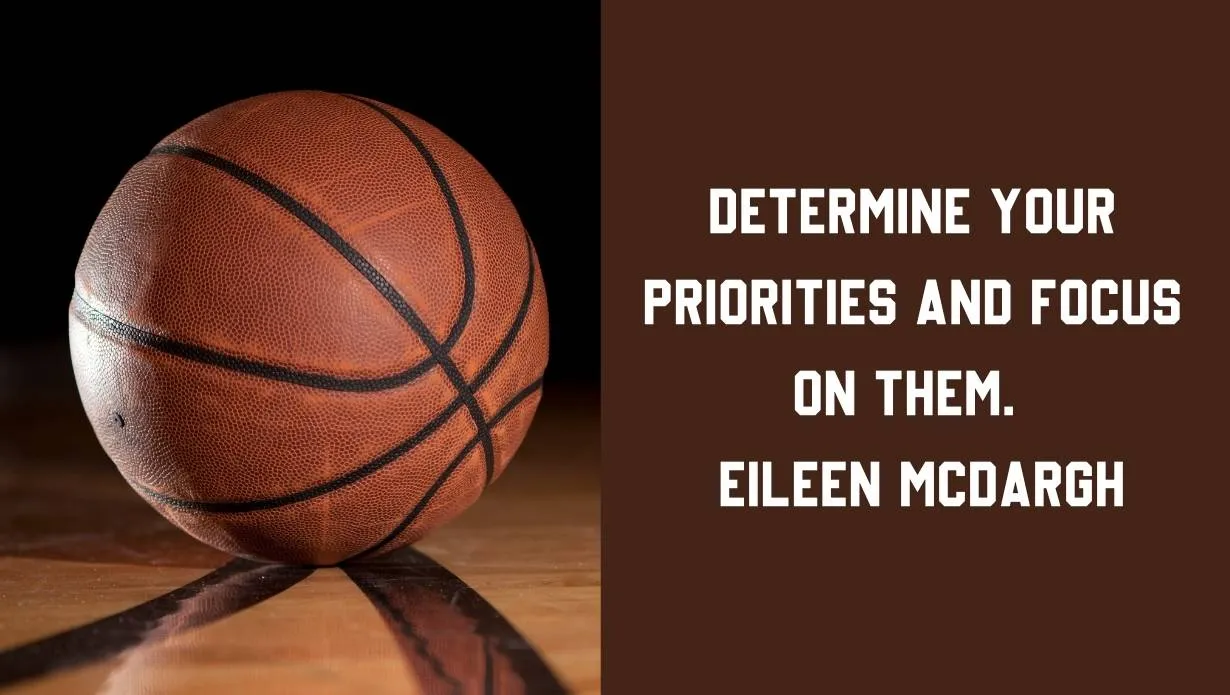
Basketball Font was designed by a well-known graphic designer Akhmad Afandahi. It is a Fancy typeface category.
This typeface has been used in the NBA to print player names on jerseys, 2015 All-Star Game logos, and the NBA logo.
Basketball Font Family